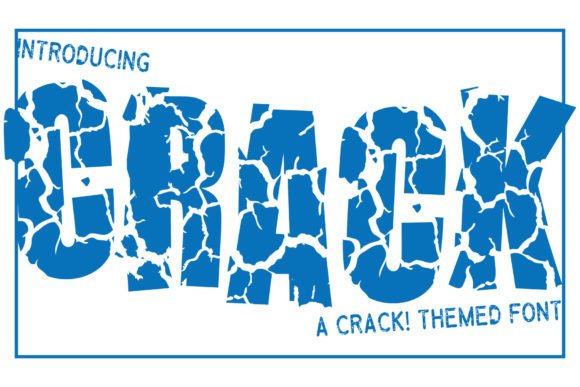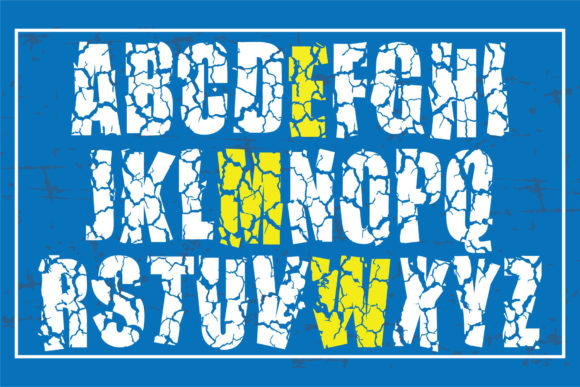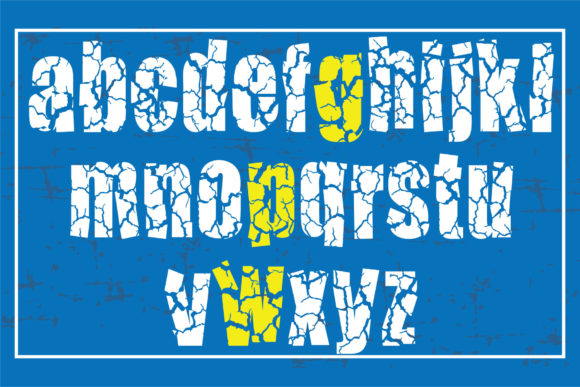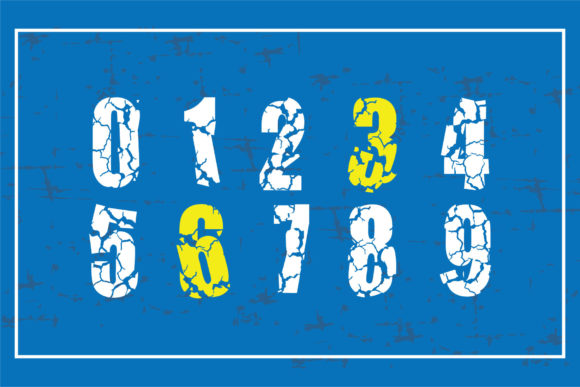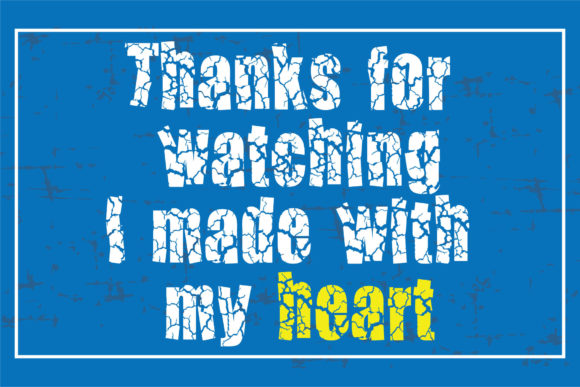
Unleash Your Creativity with Crack Font
Have you ever stared at a blank canvas, feeling the urge to create something bold and eye-catching? I know I have. Sometimes, all it takes is the right tool to spark that creative fire. For designers, finding the perfect font can be the difference between a good design and a great one.
That’s where Crack Font comes in – a rough-textured, cool, and assertive display font that’s sure to make a statement. Whether you’re designing a poster, flyer, or print, Crack Font is the perfect addition to elevate your work. Its versatility makes it a valuable asset for any designer looking to add some edge to their designs.
Review: Crack Font
As a designer, I’ve had the chance to work with various fonts, and I must say that Crack Font has its unique charm. ✨ One thing that stands out is its versatility – it can be used for both casual and professional projects. The font’s distressed, gritty feel adds a touch of edginess that’s perfect for modern branding and advertising.
Another aspect that I appreciate is the font’s customizability. Crack Font offers a range of styles and weights, allowing designers to tailor the font to their specific needs. ✨ The font also supports a wide range of languages, making it a great option for global brands.
- ⚠️ Crack Font can be quite overwhelming in large quantities. The distressed texture can make text difficult to read if not used sparingly.
- ⚠️ Some users may find the font’s style too aggressive or unprofessional, which can be a drawback for certain projects.
Overall, I think Crack Font is a solid addition to any designer’s toolkit. While it may not be suitable for every project, its unique style and customizability make it a great option for those looking to add some grit to their designs. With proper use, Crack Font can be a real game-changer – just be sure to use it in moderation.
Tips for Getting the Most Out of Crack Font
Here are a few tips to help you get the most out of Crack Font:
- Use Crack Font sparingly to add emphasis and visual interest to your design.
- Pair Crack Font with other bold or distressed